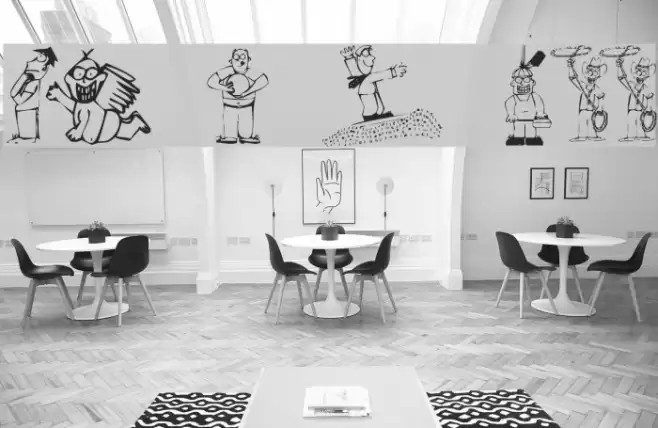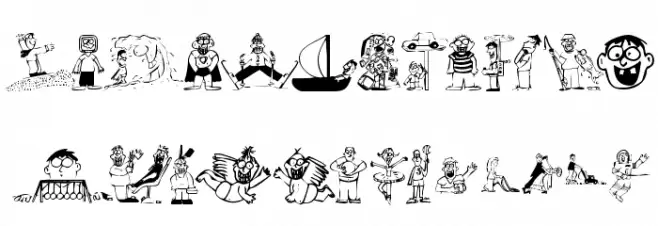
KR Silly Art People Font
KR Silly Art People Description
A whimsical, illustrative collection of cartoon characters and humorous scenes, each glyph representing a unique person or activity in a playful, hand-drawn style. The figures are expressive, with exaggerated features and dynamic poses, emphasizing fun and creativity rather than typographic uniformity.
A decorative font made up of quirky cartoon people and scenes from Uncategorized fonts.
- Proposed Projects: Children’s books, party invitations, comic strips, educational materials, playful branding, posters.
- Overall Style: Whimsical, Playful, Cartoonish
- Use Case: Decorative elements, Themed headlines, Visual storytelling, Kids’ materials